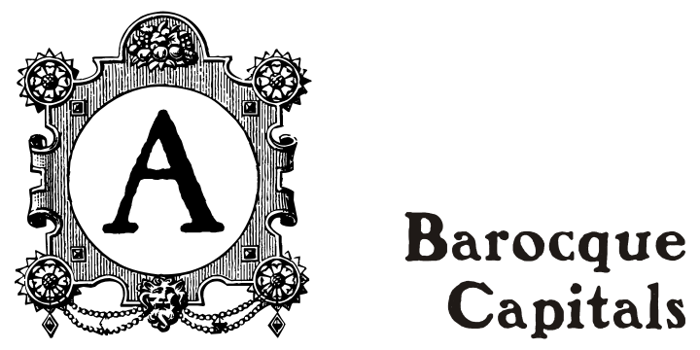
Barocque Capitals Font
@coling This is a problem with Windows when it tries to render fonts that have very complex/large characters. Some of these characters have almost 10,000 points (which is too many), and if you don't have enough CPU / Memory Windows will restart.
There is something seriously wrong with BAROCQUE CAPITALS>
When I download it, it messes up my computer.
After downloading it I can open it part way and then the computer closes down and then restarts.
I get the message "The system has recovered from a serious error".
This is the first time this has happened after years of downloading fonts.